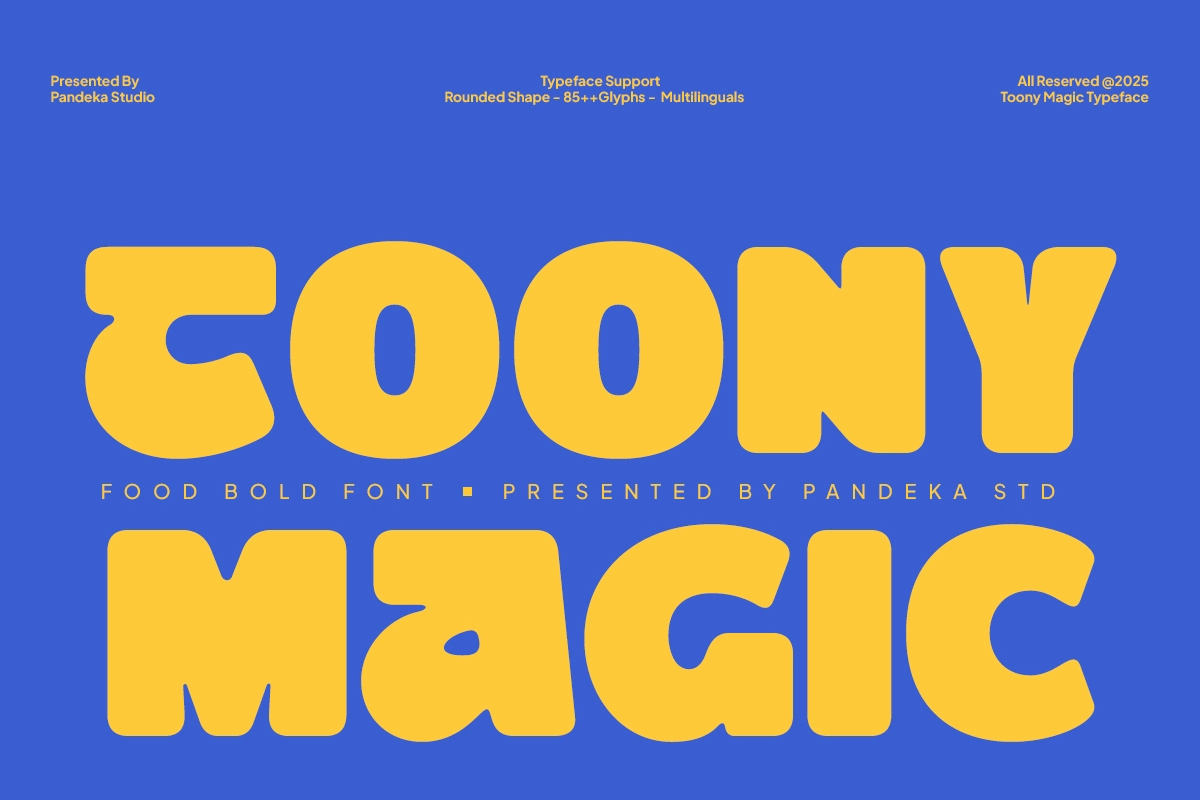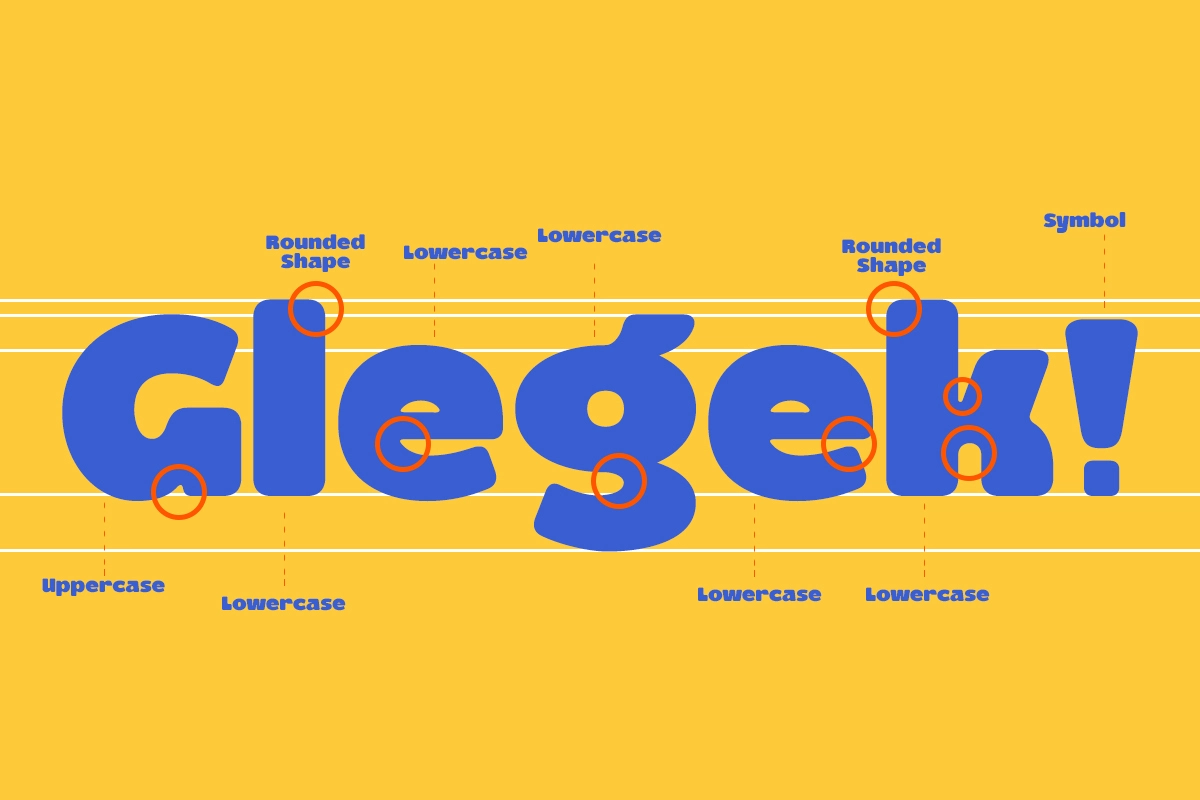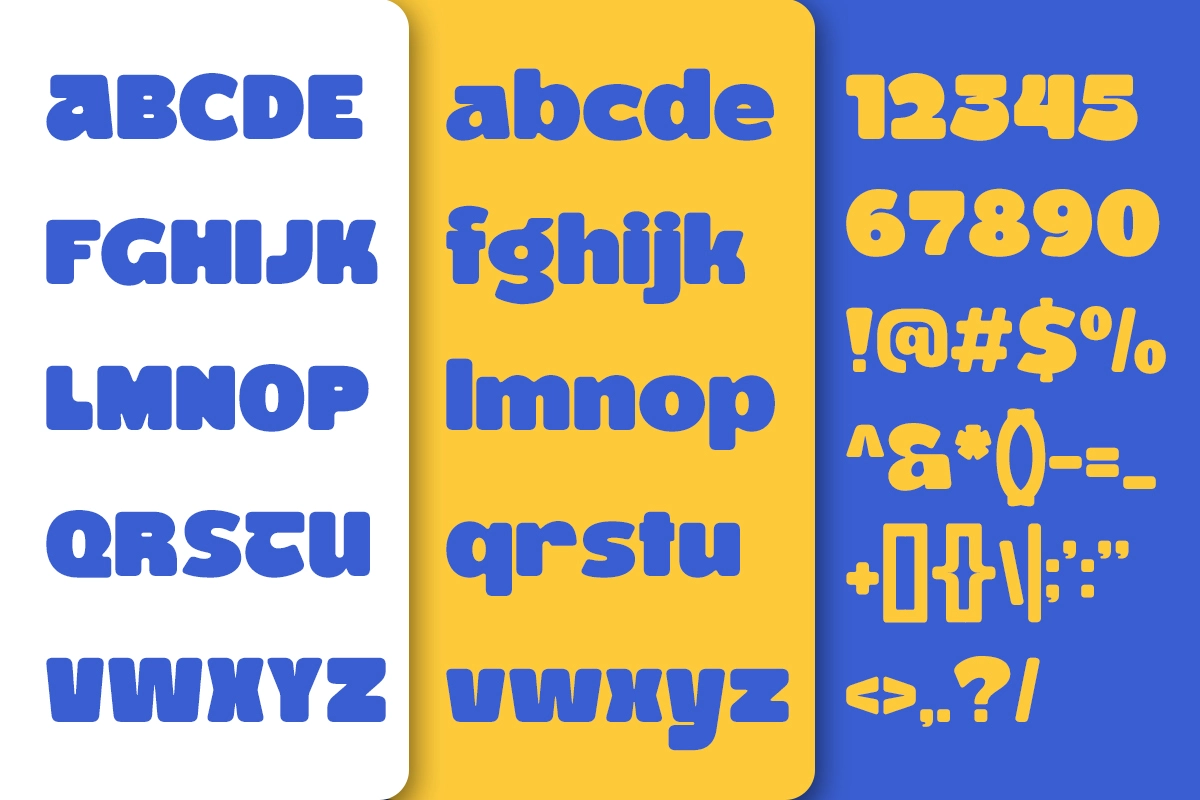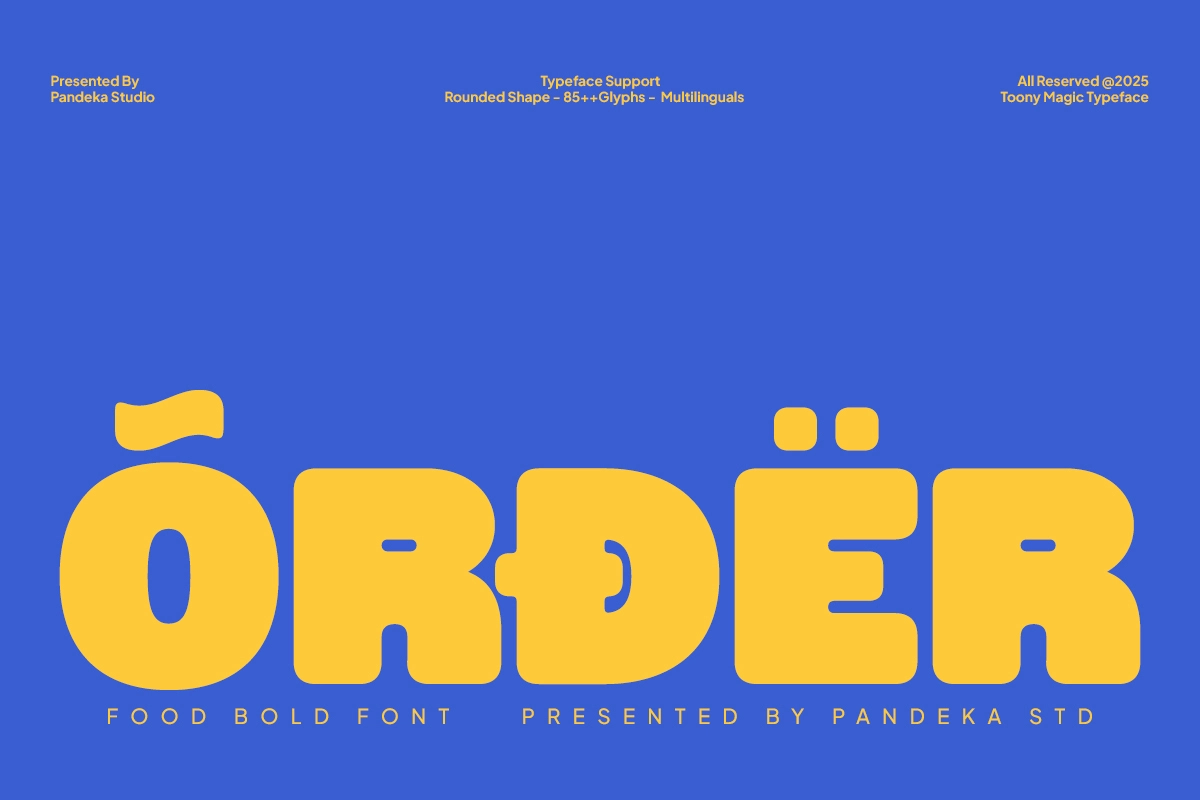
Toony Magic - Cartoon Bold Font
Toony Magic
Toony Magic piles thick, bouncy strokes into a cartoon bold font, with rounded corners and slightly wobbling baselines that give every letter a chewy, gummy-candy weight. The construction leans closer to a burger-joint sign or a Saturday-morning cereal box than a straight display face.
Set big, the O's and G's puff out into near-full circles, and the ascenders bend just enough to keep the whole word feeling handmade rather than mechanical. Use it for restaurant and bakery branding, snack packaging, kid-friendly book covers and posters, and playful social media graphics.
- Uppercase & lowercase;
- Numerals, punctuation & symbols;
- 85+ glyphs total;